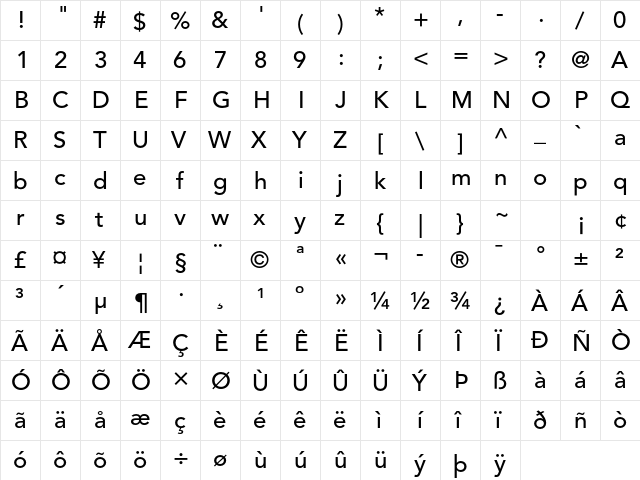
Avenir LT Std 65 Medium
| Designer | Adrian Frutiger |
Design Context for Avenir LT Std Typeface
Avenir LT Std offers clean, dependable letterforms without strong stylistic allegiance, making it a practical choice for designers who need flexibility. The delicate stroke weight brings airiness and refinement to layouts.